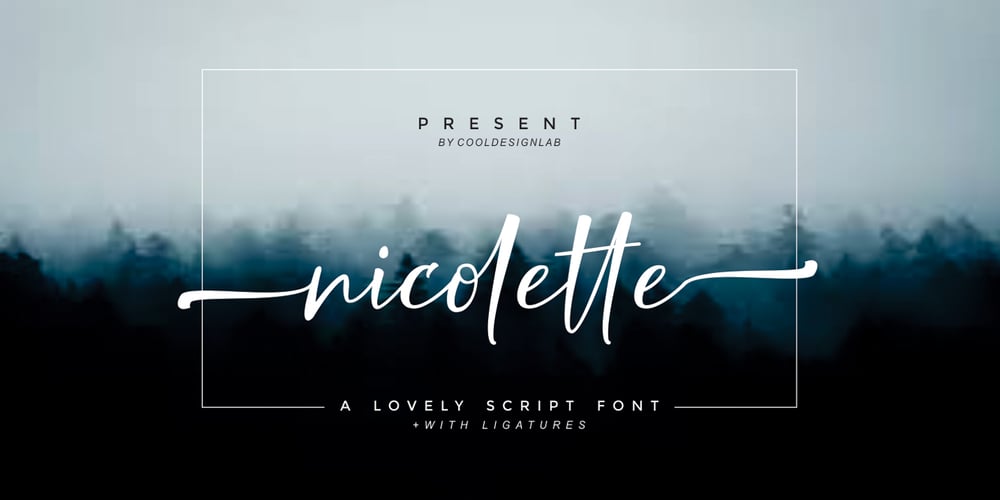
Nicolette Script Font Family was designed by Kurniadi Saputra and published by Cooldesignlab. Nicolette Script contains 1 styles and family package options. Nicolette is a handwritten script font that is given a modern touch and front and back swashes. Can be used for various purposes. Suitable for Branding, Happy New Year, Logos, Greeting Cards, Stationery, Weddings and Offers. Such as titles, signatures, wedding invitations, t-shirts, letterhead, signboards, labels, music titles, news, posters, badges etc. if you want to use it for your work, this font can be used easily and simply because there are many features in it to load a lower complete set of letters and include initial letters and terminals, alternatives, binding and support for many languages. File included: Nicolette. otf To activate the OpenType Stylistic alternative, you need a program that supports the OpenType feature such as Adobe Illustrator CS, Adobe Indesign & CorelDraw X6-X7, Microsoft Word 2010 or a newer version And this Font has provided a PUA key code (special letters coded). There are additional ways to access alternatives / swash, using Character Map (Windows), Nexus Fonts (Windows), Font Books (Mac) or software programs like PopChar (for Windows and Mac). If you need help or advice, please contact me via email “cooldesignlab@gmail.com”